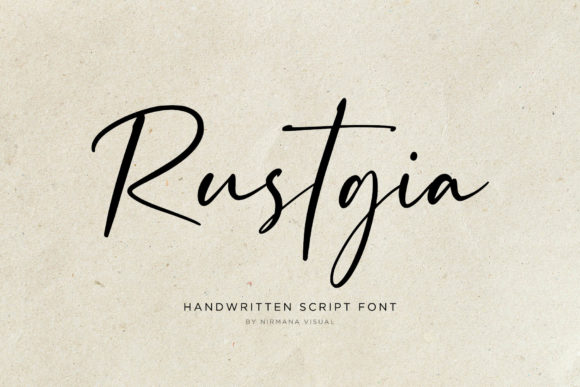
Rustgia Font
In the realm of captivating artistry, where words dance and emotions flow, allow us to introduce Rustgia Font, a script font that transcends the boundaries of ordinary typography. This exquisite creation by Sigit Dwipa is a testament to the transformative power of handwritten elegance.
Rustgia embodies a rare harmony of timeless aesthetics and modern sophistication. Its delicate strokes, reminiscent of a skilled calligrapher's hand, evoke a sense of nostalgia and charm. Each letter, meticulously crafted with love, exudes a unique personality, adding depth and character to your designs.
Whether you're crafting heartfelt wedding invitations, extending gratitude with personalized thank you cards, or leaving a lasting impression with business cards, Rustgia Font is your perfect companion. Its versatility extends to logos, greeting cards, and any project yearning for a touch of handwritten grace.
With Rustgia Font, you unlock a world of creative possibilities. Its enchanting allure will elevate your designs, captivating the hearts and minds of your audience. Step into the spotlight of distinction and originality, where Rustgia Font awaits to weave its magic and transform your creations into masterpieces.